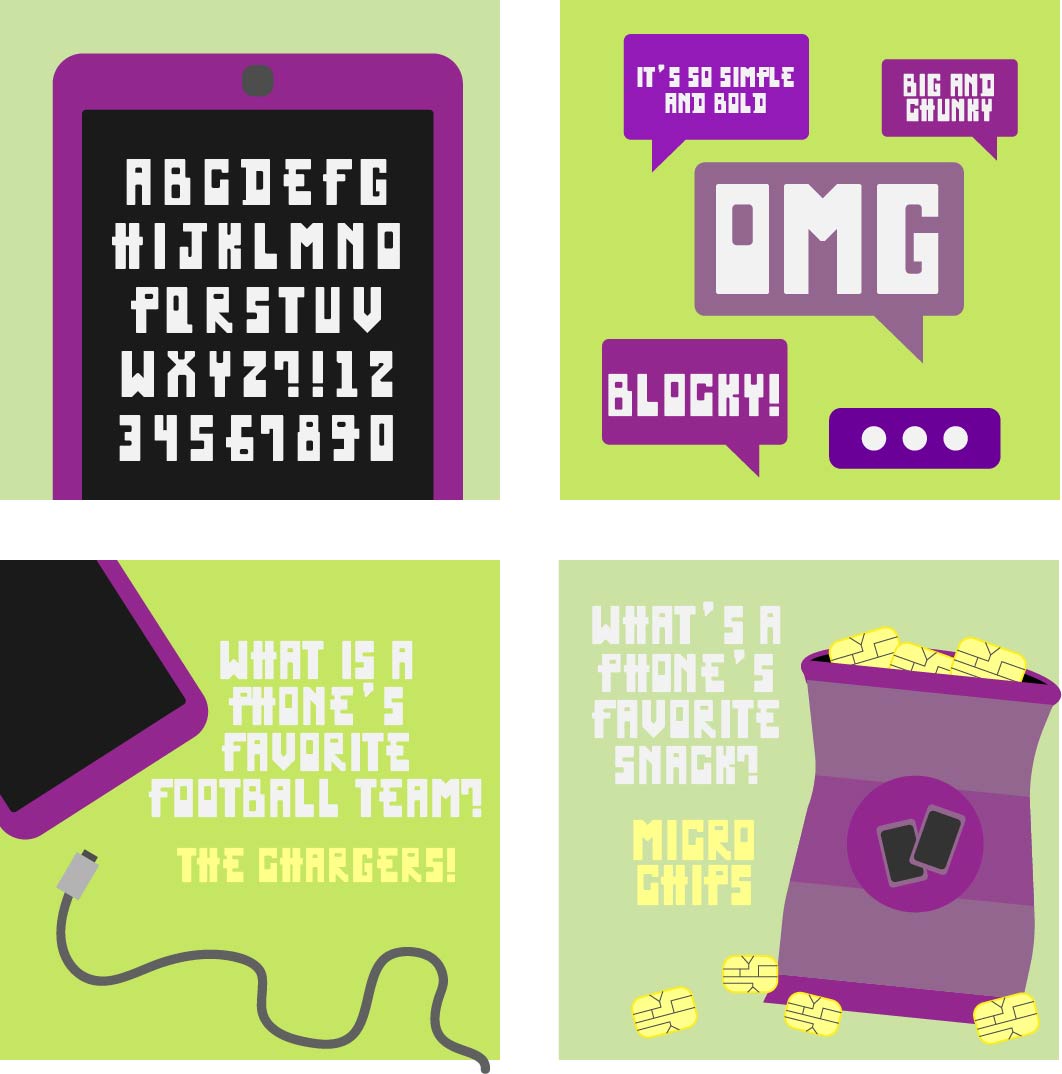
• This font is a bold, ultra-heavy display typeface with a strong geometric and industrial feel. Its blocky letterforms are built from thick, monoline strokes with sharp angles and squared edges. The compact shapes and tight counters give it a powerful, high-impact presence. It works best for headlines, posters, and logos where a striking, modern look is needed.
this is so chunky i love it